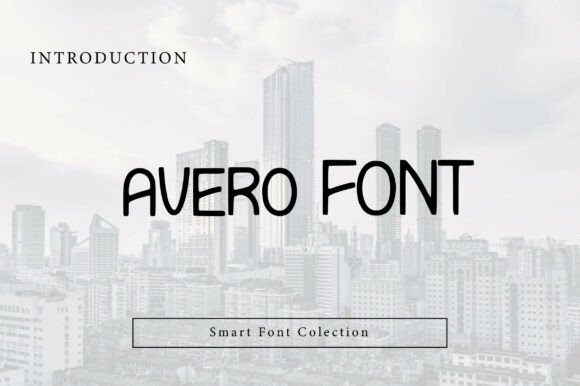
The Avero Font: A Designer’s New Best Friend
I still remember the last time I was working on a branding project, and I just couldn’t seem to find the right font. My client wanted something modern, yet approachable; clean, yet friendly. I scoured the internet, tried out dozens of fonts, but nothing seemed to fit the bill. That was until I stumbled upon Avero Font. 💡
As soon as I laid eyes on Avero, I knew I had found what I was looking for. Its clean, modern handwritten sans-serif design, with rounded letterforms and even strokes, immediately caught my attention. But what really sealed the deal was its natural handwritten feel, which made it highly readable while maintaining a relaxed and approachable style.
What Makes Avero Special?
Avero is perfect for a wide range of design projects, including branding, logos, UI/UX design, mobile apps, social media graphics, blogs, educational content, and lifestyle projects. Its unique blend of human warmth and structured clarity makes it an excellent choice for designers, crafters, and creative hobbyists.
What I Love About Avero ✨
- ✅ Clean and modern design
- ✅ Highly readable, even at small sizes
- ✅ Friendly and approachable feel
- ✅ Works beautifully across digital and print platforms
- ✅ Perfect for a wide range of design projects
- ⚠️ Limited availability of extended language support
- ⚠️ Some users may find the font too minimalist or lacking in personality
The Story Behind Avero
Avero Font was designed with the goal of creating a clean, modern handwritten sans-serif typeface that would be both highly readable and approachable. The designer wanted to create a font that would feel human yet structured, making it perfect for a wide range of design projects.
Q: What is Avero Font?
A: Avero Font is a clean, modern handwritten sans-serif typeface with a casual, friendly, and minimalist personality.
Q: What is Avero Font best used for?
A: Avero Font is perfect for branding, logos, UI/UX design, mobile apps, social media graphics, blogs, educational content, and lifestyle projects.
Q: Is Avero Font available in multiple languages?
A: Avero Font may have limited availability of extended language support, so be sure to check with the designer or font provider for more information.